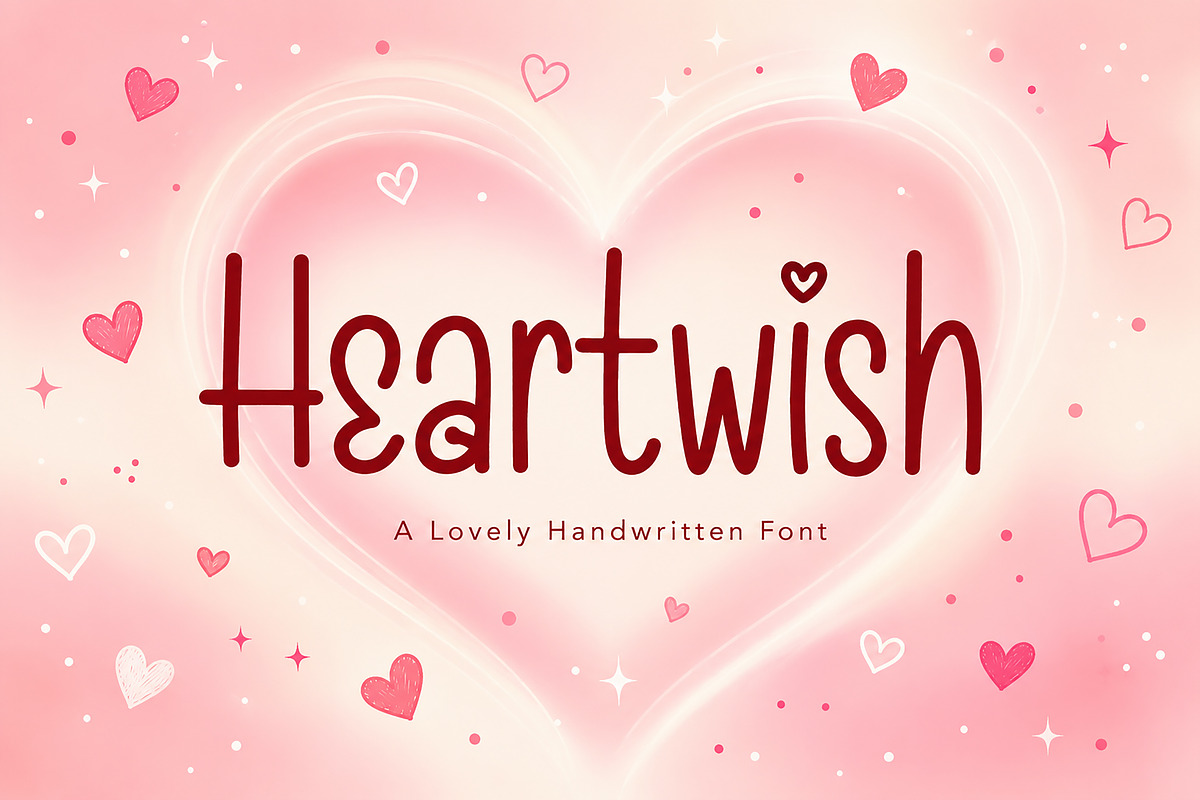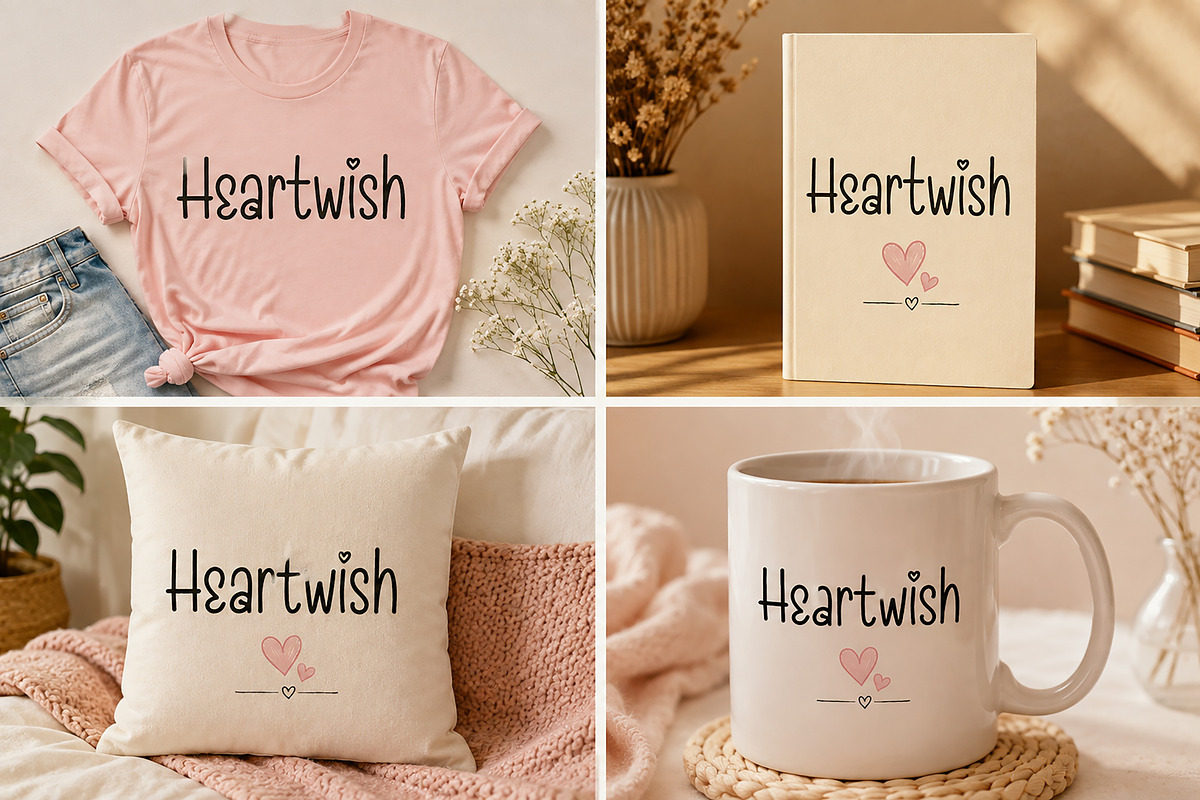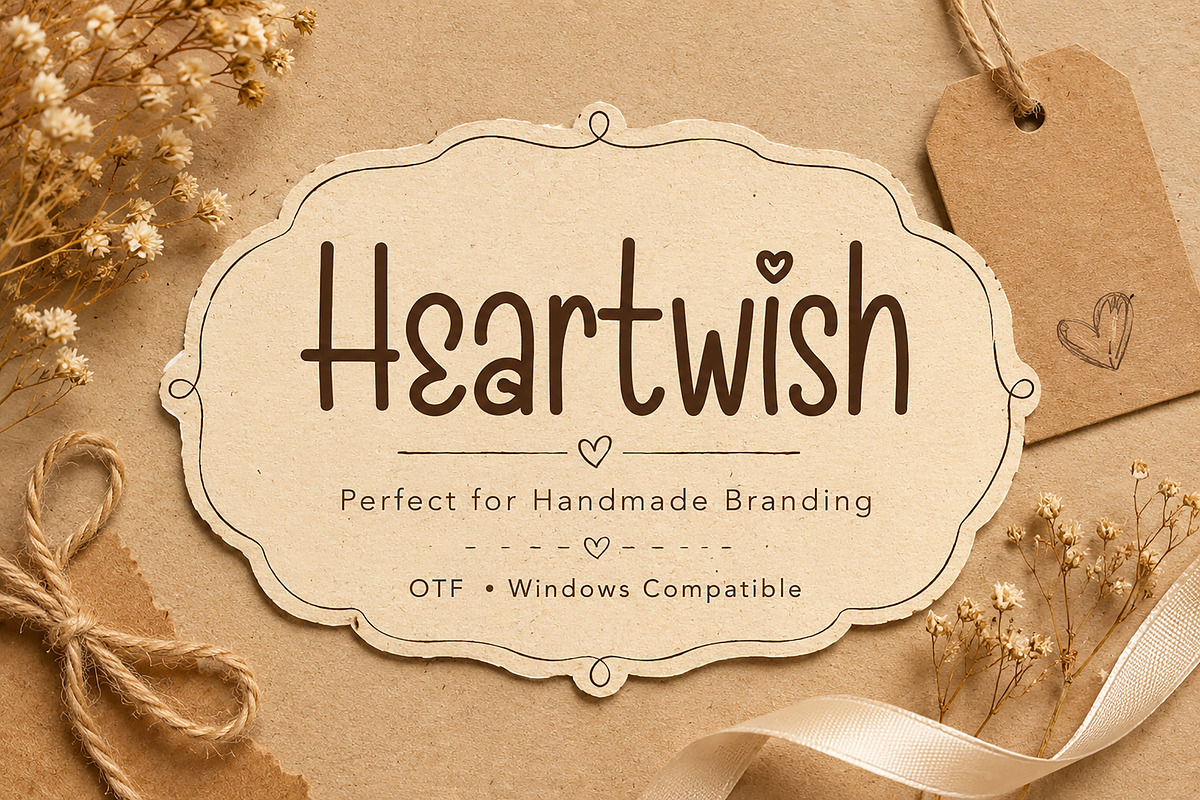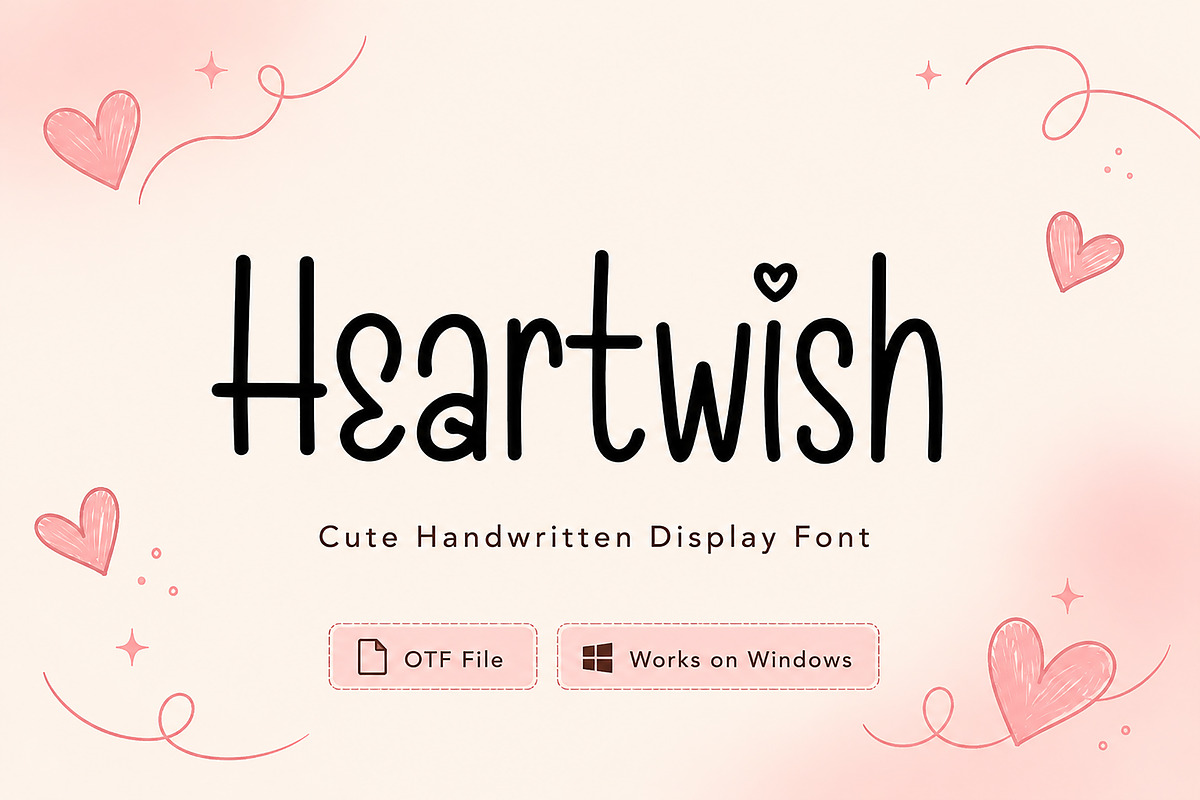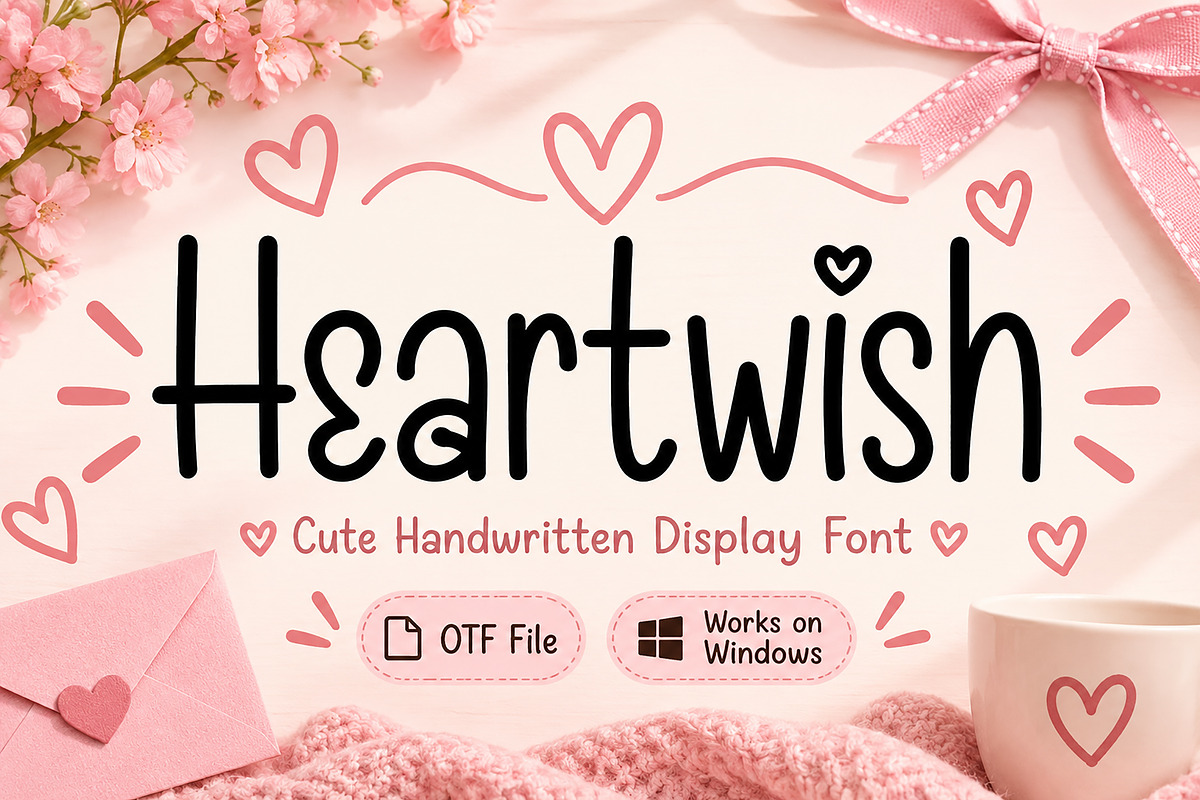
Heartwish
Heartwish – Cute Handwritten Display Font
Introducing Heartwish, a cute handwritten display font designed to add warmth, charm, and personality to your creative projects. Featuring smooth hand-drawn strokes and a lovely heart detail, this font creates a friendly and romantic feel that's perfect for modern designs.
Whether you're designing heartfelt gifts, boutique branding, wedding stationery, greeting cards, or social media graphics, Heartwish helps your text stand out with a soft, playful, and elegant handwritten style.
Its clean letterforms make it easy to use while maintaining a handcrafted appearance that works beautifully for both personal and commercial projects.
Wedding Invitations
Valentine's Day Designs
Greeting Cards
Handmade Product Packaging
Small Business Branding
Boutique Logos
Product Labels
Stickers
Gift Tags
T-Shirts
Mugs
Pillows
Tote Bags
Scrapbooking
Printable Designs
Craft Projects
DIY Creations
Quotes & Titles
Style: Cute Handwritten Display Font